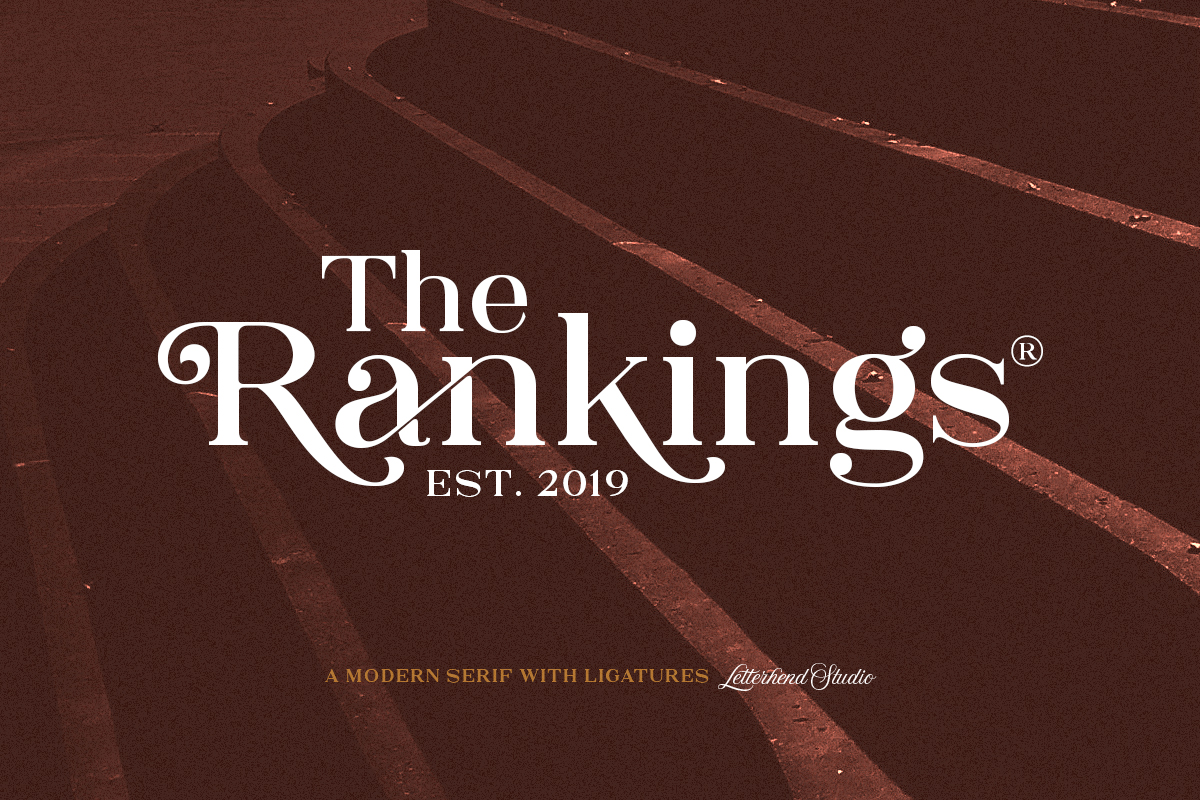
The Rankings Serif Font
The Rankings Serif Font is perfect for competitive business presentations, award ceremony materials, leaderboard display graphics, ranking system interfaces, competitive sports league branding, achievement-focused corporate reports, performance evaluation documents, top-tier university publications, prestigious ranking publications, and excellence recognition systems. This authoritative typeface brings competitive credibility to business competition platforms, academic ranking systems, performance assessment tools, competitive analytics dashboards, and professional achievement certification materials.
The Rankings Serif Font is exciting because it embodies competitive excellence and authoritative ranking through its precisely structured serif letterforms that command respect and convey institutional credibility. The font features strong, hierarchical characters with commanding proportions and professional details that evoke the authority of official rankings, the credibility of performance metrics, and the prestige of competitive achievements. Its distinctive construction demonstrates ranking authority with carefully balanced elements that create an immediate sense of competitive excellence and institutional reliability. The font's authoritative presence and ranking authenticity make it perfect for organizations seeking to communicate competitive superiority, performance excellence, and authoritative evaluation in their visual communications.
The Rankings Serif Font family includes various competitive styles: Light, Regular, Medium, Bold, Black, Italic, Condensed, Extended, Display, Authority, Professional, and Prestige variants. Each family member maintains the core ranking DNA while offering different levels of authority for diverse competitive design applications. The comprehensive font collection ensures consistent authoritative branding across ranking campaigns, competitive platforms, and performance evaluation materials.
Whether you're creating competitive brand identities, designing ranking system materials, developing authoritative website headers, or crafting performance-focused promotional campaigns, The Rankings Serif Font delivers outstanding competitive appeal and ranking authenticity. The font's distinctive authoritative personality excels in competitive logos, ranking packaging design, performance applications, and evaluation projects where competitive excellence and authoritative credibility are essential.